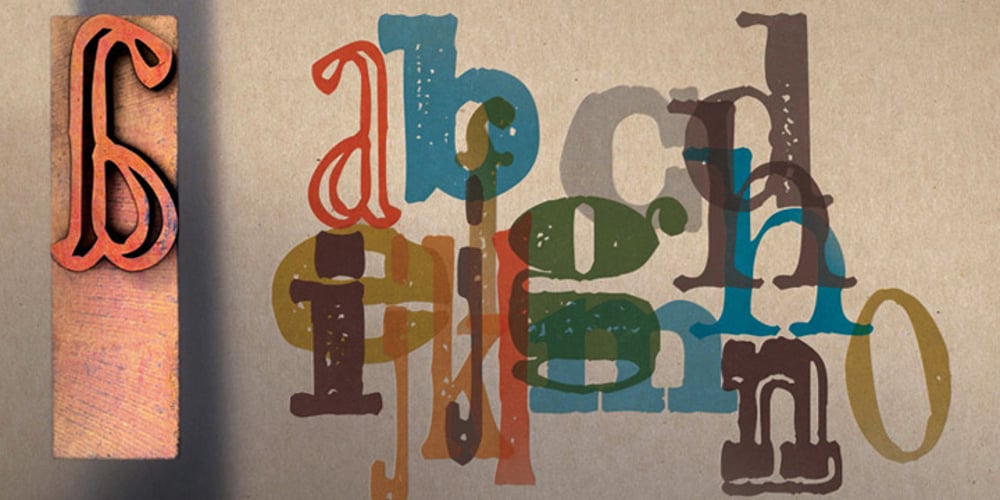
Alta California
Alta California font
Alta California Font Family was designed by Steve Mehallo and published by steve mehallo. Alta California contains 1 styles and family package options. Alta California became designer steve mehallo’s “vector-based artist’s response” to the early Apple Macintosh bitmapped font San Francisco. Alta California was developed using “sampled” wood type and letters from numerous historical sources. The name comes from the Alta California newspaper, the first daily published in California, one of a dubious Barbary Coast nature, a sheet that shaped the bias of San Franciscans and attracted its own grade of reporters, including a printing specialist who went under the nom de plume Mark Twain. Alta California’s edges were meticulously redrafted by hand, with letterpress-inspired fallout and 19th century pointing hands. The final collection of rough hewn letters jump, dive, fall, zag and zig. Alta California looks great on greeting cards, food packaging, as retail signage for boutiques, vintage stores or at D.I.Y. sales, on band posters or club cards, in and around historical quarters, or for use on any ransom note that needs to evoke a wild west look and feel.